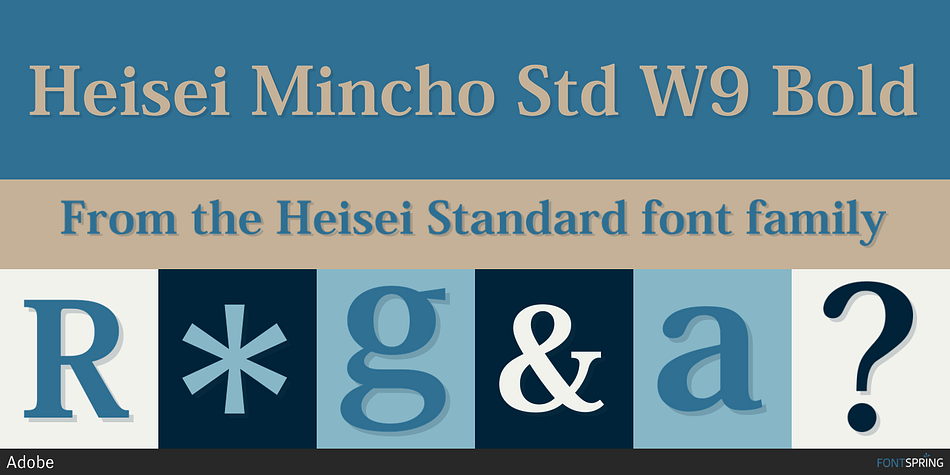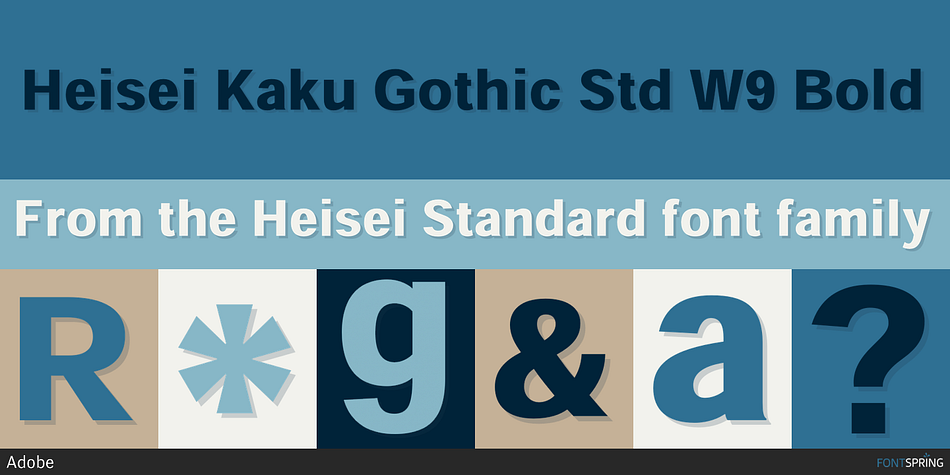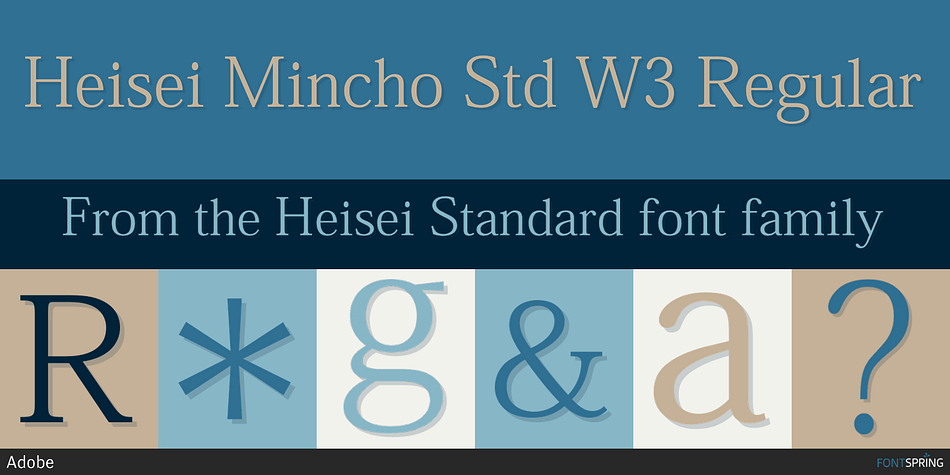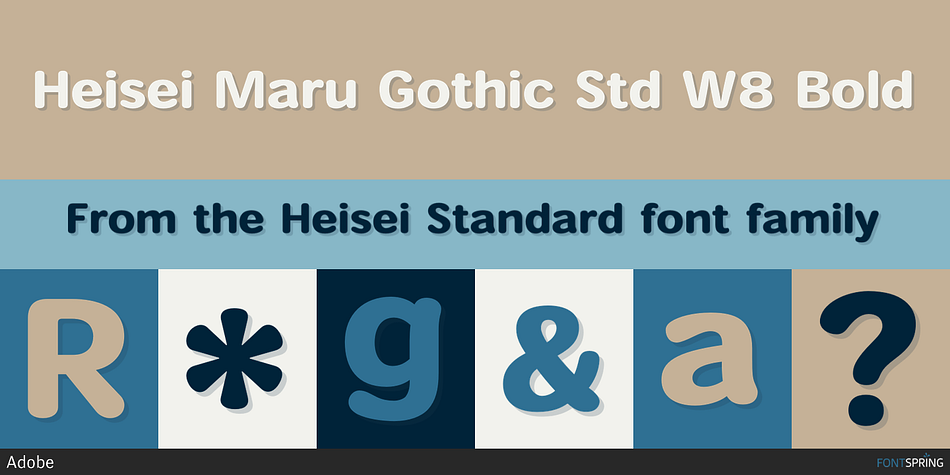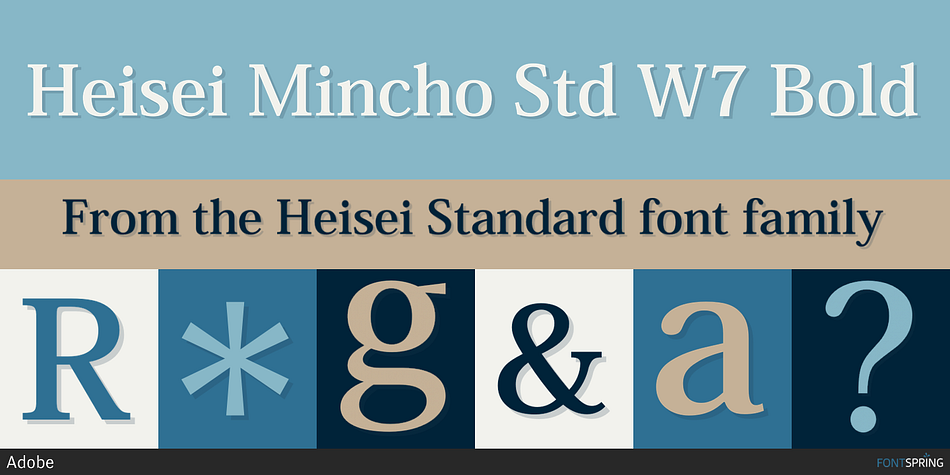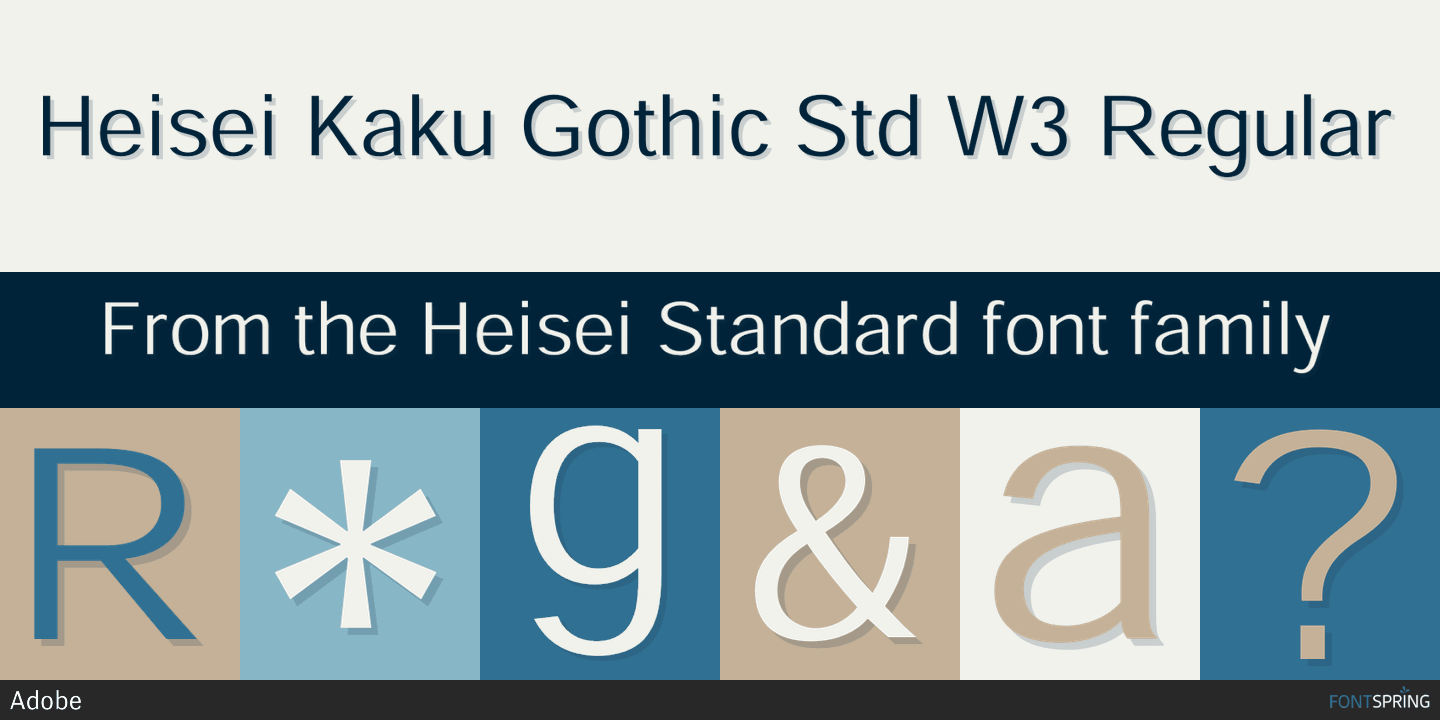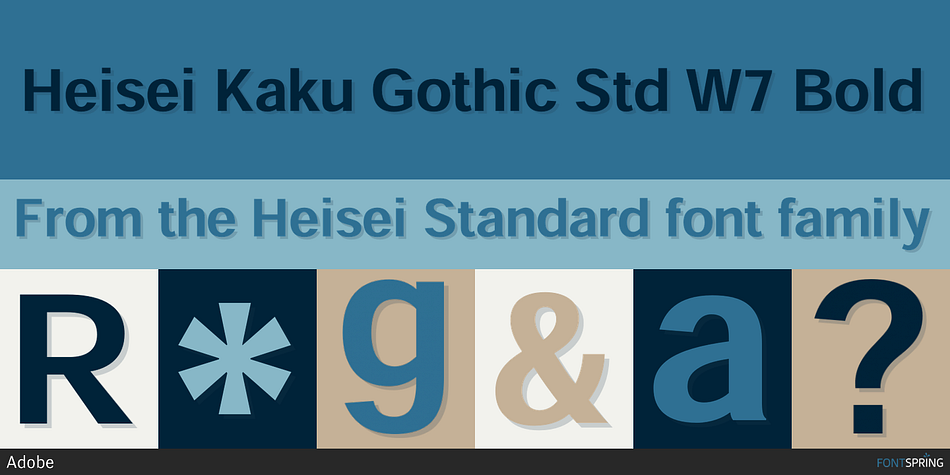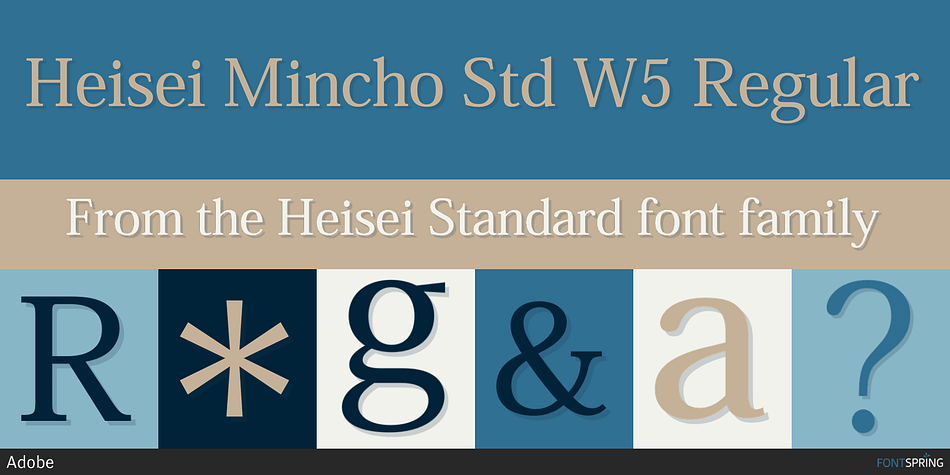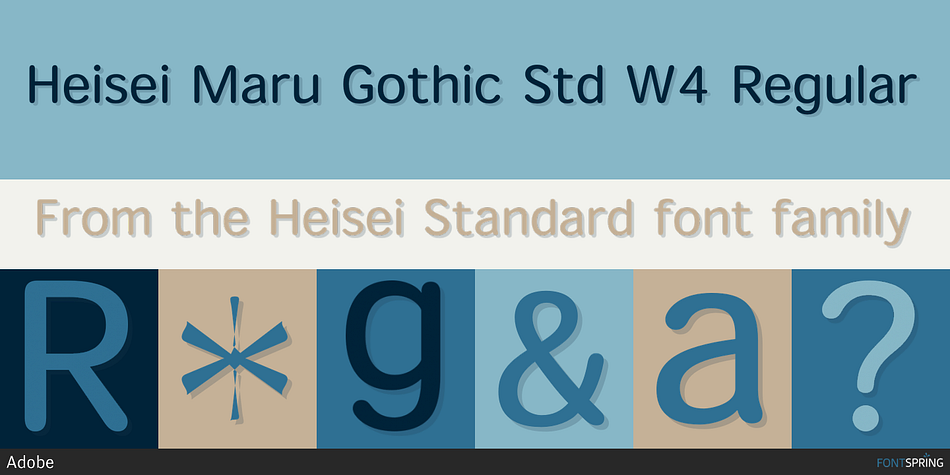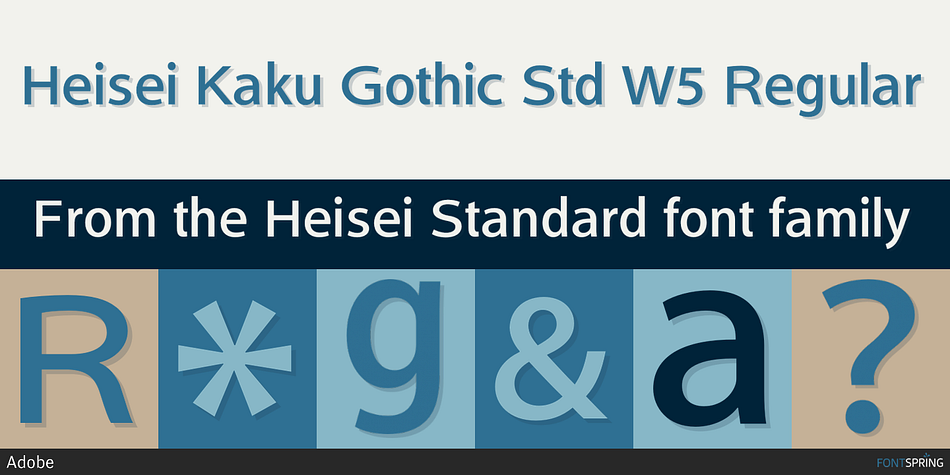
Heisei Standard is a sans serif and foreign font family. This typeface has ten styles and was published by Adobe.
Heisei Kaku Gothic was one of the first typeface families developed by a group of type foundries formed by the Japanese Standards Association (JSA). In 1988, a font development project was started by the Font Development and Promotion Center (FDPC), which was formed as an affiliate of the JSA. A type design competition was held for Gothic typefaces and a design proposed by Nippon Typewriter Co., Ltd. (which later became Canon N.T.C., Inc.) was elected. Heisei Kaku Gothic is a modern Gothic, or sans-serif, design whose kanji glyphs have simple stroke shapes. Still, its hiragana and katakana characters have subtly curved strokes, offering a good balance between simplified and traditional letterform construction. The standard weight W5 is designed for use with Heisei Mincho W3.
Heisei Maru Gothic was the second typeface family developed by a group of type foundries formed by the Japanese Standards Association. The development project began in 1989, when the Font Development and Promotion Center, an affiliate of the JSA, elected Sha-Ken Co., Ltd. to be the designer. Heisei Maru Gothic is a traditional round gothic typeface with relatively larger counter-spaces, which gives it a kind of openness and brightness. Unnecessary subtle stroke features are avoided to optimize printing on low-resolution output devices. Two weights are available.
Heisei Mincho was one of the first typeface families developed by a group of type foundries formed by the Japanese Standards Association (JSA). In 1988, a font development project was started by the Font Development and Promotion Center (FDPC), which was formed as an affiliate of the JSA. A type design competition was held for Mincho typefaces and design proposed by Ryobi Imagix Co. was elected. Heisei Mincho is a modern Mincho design with relatively larger counter-spaces and simplified strokes composed of many straight lines. For better reproduction on low-resolution output devices, its horizontal stroke width is set heavier than other standard Mincho typefaces. Lighter weights of Heisei Mincho such as W3 are suitable for printing books and office documents.